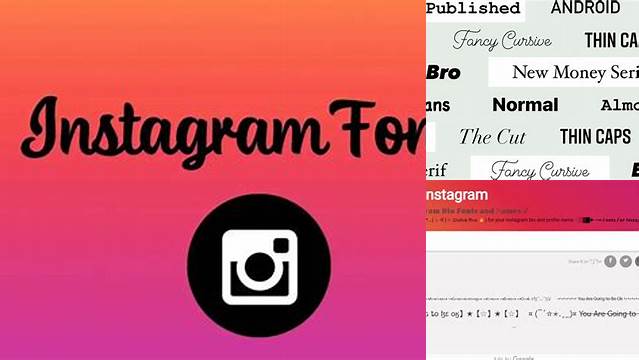
IOS Instagram Fonts: All Names & How To Use Them
Hey guys! Have you ever scrolled through Instagram and wondered what fonts those cool profiles are using in their stories or posts? Well, you're not alone! The fonts we use can significantly impact how our content is perceived, adding a unique flair and personality to our Instagram presence. In this comprehensive guide, we're diving deep into the world of iOS Instagram fonts, uncovering all the names and exploring how you can use them to level up your social media game. Whether you're a seasoned influencer or just starting, understanding the nuances of typography on Instagram is essential. Let’s jump right in and explore the diverse range of fonts available on iOS for Instagram!
Understanding the Importance of Fonts on Instagram
Fonts play a crucial role in shaping the visual identity of your Instagram profile. Think about it: the right font can convey a sense of professionalism, creativity, playfulness, or sophistication. Your font choice communicates more than just the words you're typing; it speaks volumes about your brand's personality and the message you want to send. Choosing the right font is like selecting the perfect outfit for an occasion – it needs to match the mood and context. For example, a minimalist, sans-serif font might be ideal for a tech company, while a whimsical, handwritten font could be perfect for a lifestyle blogger. Understanding this dynamic can dramatically improve your content's engagement and overall impact.
When you're creating content for Instagram Stories, Reels, or even your bio, the fonts you use are integral to capturing your audience’s attention. In a world of endless scrolling, standing out visually is paramount. A well-chosen font can make your text pop, ensuring that your message is not only read but also remembered. Moreover, consistent font usage across your posts and stories helps build brand recognition. Just like logos and color palettes, fonts become a part of your brand's visual DNA. When your followers consistently see a particular font associated with your content, it creates a sense of familiarity and trust. This consistency helps in making your brand more recognizable and memorable in the long run. So, selecting and sticking with a set of fonts that represent your brand is a crucial step in establishing a strong and cohesive online presence. Consider the emotional impact of different fonts – a bold font can convey confidence, while a lighter font might suggest a softer, more approachable vibe. Experiment with different fonts to see what resonates best with your audience and aligns with your brand’s values. Ultimately, the right font choice can be a game-changer for your Instagram strategy, enhancing your content and strengthening your connection with your followers.
Default iOS Fonts on Instagram
Instagram offers a variety of default fonts within its app, easily accessible when you're creating stories or posts. These fonts are designed to cater to different aesthetics and moods, providing a quick and convenient way to add text to your visuals. Knowing these default options is the first step in mastering Instagram typography. Let’s explore some of the most popular and widely used fonts available directly within the app.
One of the most common default fonts is Arial, a classic sans-serif font known for its clean and straightforward appearance. Arial is a safe bet for readability and professionalism, making it a great choice for businesses and individuals who want to convey a sense of clarity and simplicity. Another popular option is Helvetica, which is similar to Arial but has a slightly more modern feel. Helvetica is highly versatile and works well in various contexts, from captions to story text. For those looking to add a touch of elegance, Times New Roman is a serif font that brings a traditional and sophisticated vibe. It’s ideal for posts that require a formal or classic touch. If you're aiming for something more playful and casual, Instagram offers fonts like Comic Sans MS (use this sparingly!) and Marker Felt, which mimic handwriting. These fonts can add a personal and informal touch to your content, making it feel more relatable and approachable. There's also the Courier New font, a monospaced font that gives a typewriter-like appearance, perfect for creating a retro or techy feel. Instagram regularly updates its font selection, so you might find new additions from time to time. The key is to experiment with these default fonts and discover which ones best align with your brand and content style. Don’t hesitate to mix and match fonts to create visual interest, but always ensure that your font choices enhance readability and overall aesthetic appeal. By leveraging these default options effectively, you can significantly elevate the visual impact of your Instagram content.
Hidden and Special Fonts on Instagram
Beyond the default fonts readily available on Instagram, there’s a world of hidden and special fonts that you can unlock to make your content even more unique and eye-catching. These aren't immediately visible within the app, which makes them all the more intriguing. Exploring these hidden gems can set your Instagram profile apart from the crowd. So, how do you access these special fonts?
One of the most popular methods involves using third-party apps and websites that generate stylized text. These tools offer a vast library of fonts that you can copy and paste directly into your Instagram bio, captions, or stories. Websites like LingoJam and CoolSymbol are excellent resources for generating fancy text. Simply type your message into the generator, and it will present you with various font options to choose from. Once you find a font you love, copy the text and paste it into Instagram. Another method involves using keyboard apps that offer custom font options. These apps integrate directly with your phone’s keyboard, allowing you to type in different fonts seamlessly. Apps like Fonts and Better Fonts provide a wide range of stylish fonts that you can use across various platforms, including Instagram. These apps often come with additional features like symbol libraries and decorative elements, adding even more flair to your content. Keep in mind that while these special fonts can be visually appealing, it's essential to ensure they are readable. Avoid overly ornate or complex fonts that might strain your followers’ eyes. Readability is key to effective communication, so always prioritize clarity when selecting fonts. Experiment with different font styles to find the perfect balance between uniqueness and legibility. Using special fonts strategically can add personality and creativity to your Instagram profile, but it’s crucial to do so in a way that enhances, rather than detracts from, your message. By leveraging these hidden fonts, you can create a distinctive visual identity that captures your audience’s attention and leaves a lasting impression.
How to Use Different Fonts in Instagram Stories
Instagram Stories provide a fantastic canvas for creativity, and fonts are a crucial element in making your stories stand out. Learning how to effectively use different fonts in Instagram Stories can significantly boost engagement and expressiveness. The key is to balance creativity with readability, ensuring your message is not only stylish but also easily understood.
When you create a story, Instagram offers several built-in fonts that you can access by tapping the text tool. These fonts include Classic, Modern, Neon, Typewriter, and Strong, each with its unique personality. The Classic font is a simple sans-serif font, perfect for straightforward messages. Modern adds a touch of sophistication with its clean lines, making it suitable for more polished content. Neon gives a vibrant, edgy feel, ideal for highlighting important information or adding a playful touch. Typewriter evokes a retro vibe, great for creating a nostalgic or techy aesthetic. And Strong is a bold, impactful font that demands attention. To change fonts in your story, simply tap the text tool, type your message, and then tap the font name at the top of the screen to cycle through the available options. Experiment with different font colors and sizes to further customize your text. Instagram also allows you to add background colors and shadows to your text, enhancing its visibility against the background image or video. To add a background, tap the “A” icon with stars around it; to add a shadow, use the same icon but tap it again. These simple tweaks can make a big difference in how your text appears. For more advanced font options, you can use third-party apps. Apps like Canva and Over offer a wide array of fonts and design tools that integrate seamlessly with Instagram. Create your text in these apps and then save it as an image or video to upload to your story. This method gives you greater control over your typography and allows you to use custom fonts not available within Instagram itself. Remember, the goal is to use fonts that complement your story’s content and overall aesthetic. Too many different fonts can look cluttered and confusing, so stick to a consistent style. Use fonts to highlight key information, add personality, and guide your viewers’ eyes through your story. By mastering font usage in Instagram Stories, you can create visually engaging content that captivates your audience and leaves a memorable impression.
Fonts for Instagram Bio: Making a First Impression
Your Instagram bio is your digital introduction, and the fonts you use can play a significant role in making a strong first impression. A well-crafted bio with the right fonts can capture visitors' attention and encourage them to follow you. Given the limited space in your bio, every element counts, and typography is no exception.
Instagram’s bio section has some limitations in terms of font customization. You can’t directly change the default font within the app, but there are creative workarounds to add unique fonts to your bio. One of the most common methods is using online font generators. Websites like Cool Font, FontGet, and Meta Tags offer a variety of stylish fonts that you can copy and paste into your Instagram bio. Simply type your bio text into the generator, choose a font you like, and copy the formatted text. Then, paste it into your Instagram bio field. This technique allows you to use fonts that aren’t available by default, adding a personalized touch to your profile. Another approach is to use Unicode characters. Unicode is a standard that allows for a wide range of symbols and characters, including stylized letters. You can find Unicode text converters online that will transform your text into different font styles using Unicode characters. These converters often provide options for bold, italic, and other decorative fonts. Keep in mind that while fancy fonts can make your bio stand out, readability should always be a priority. Avoid fonts that are too elaborate or difficult to read at a glance. Your bio should be clear, concise, and easy to understand. Use special fonts sparingly to highlight key words or phrases, rather than using them for your entire bio. For example, you might use a bold font for your name or a unique font for your tagline. When choosing fonts for your bio, consider your brand’s personality and the message you want to convey. A minimalist font might be suitable for a professional profile, while a more playful font could work well for a creative account. Consistency is also important. If you’re using a specific font in your posts and stories, try to incorporate a similar style into your bio to create a cohesive look. Ultimately, your Instagram bio is a snapshot of who you are and what you do. By using fonts strategically, you can make a memorable first impression and attract the right followers.
Remember, the fonts you use communicate more than just words; they convey the personality and essence of your brand. Whether you’re aiming for a professional, playful, elegant, or edgy vibe, your font selections should align with your brand’s overall message and aesthetic. Prioritize readability to ensure your content is easily understood and avoid using too many different fonts, which can create a cluttered look. Consistency is key to building a recognizable brand, so stick to a limited palette of fonts and use them consistently across your profile. Take advantage of the various font options available, both within Instagram and through third-party apps and websites, to add unique flair to your posts and stories. Experiment with font pairings to create visually appealing text compositions, and always consider the context of your content when making font choices. Your Instagram bio is your digital introduction, so choose fonts that make a strong first impression while maintaining clarity and readability. Pay attention to how your fonts look on different devices and screen sizes to ensure a consistent viewing experience for all your followers. By following these guidelines, you can create a cohesive and visually compelling Instagram presence that captures attention and strengthens your connection with your audience. So go ahead, explore the world of Instagram fonts, and transform your profile into a visual masterpiece that truly represents you and your brand!